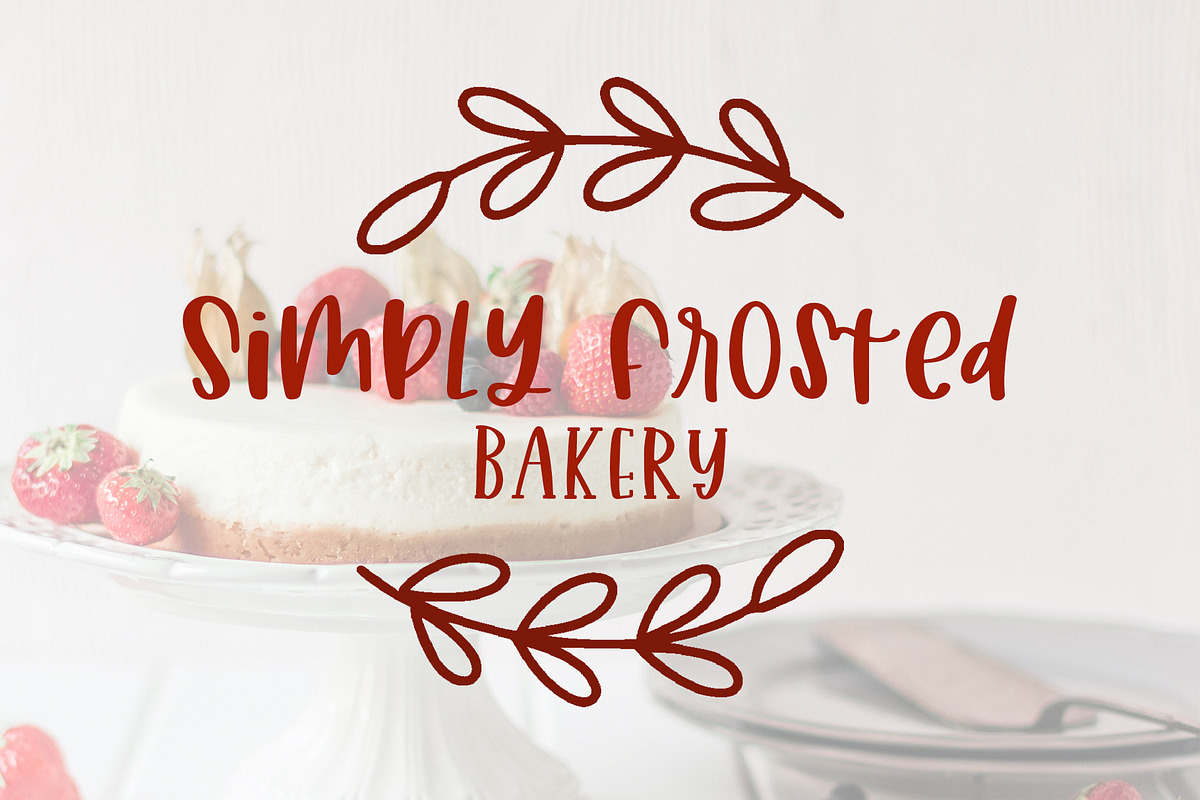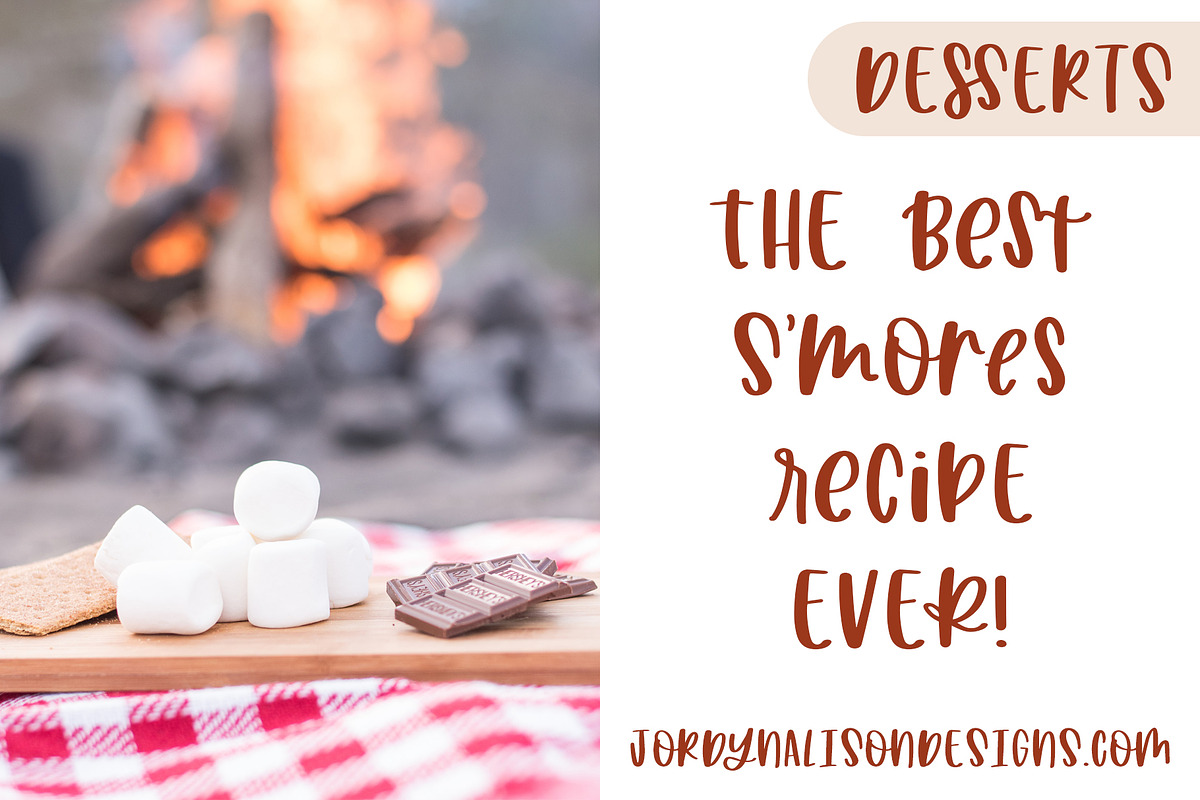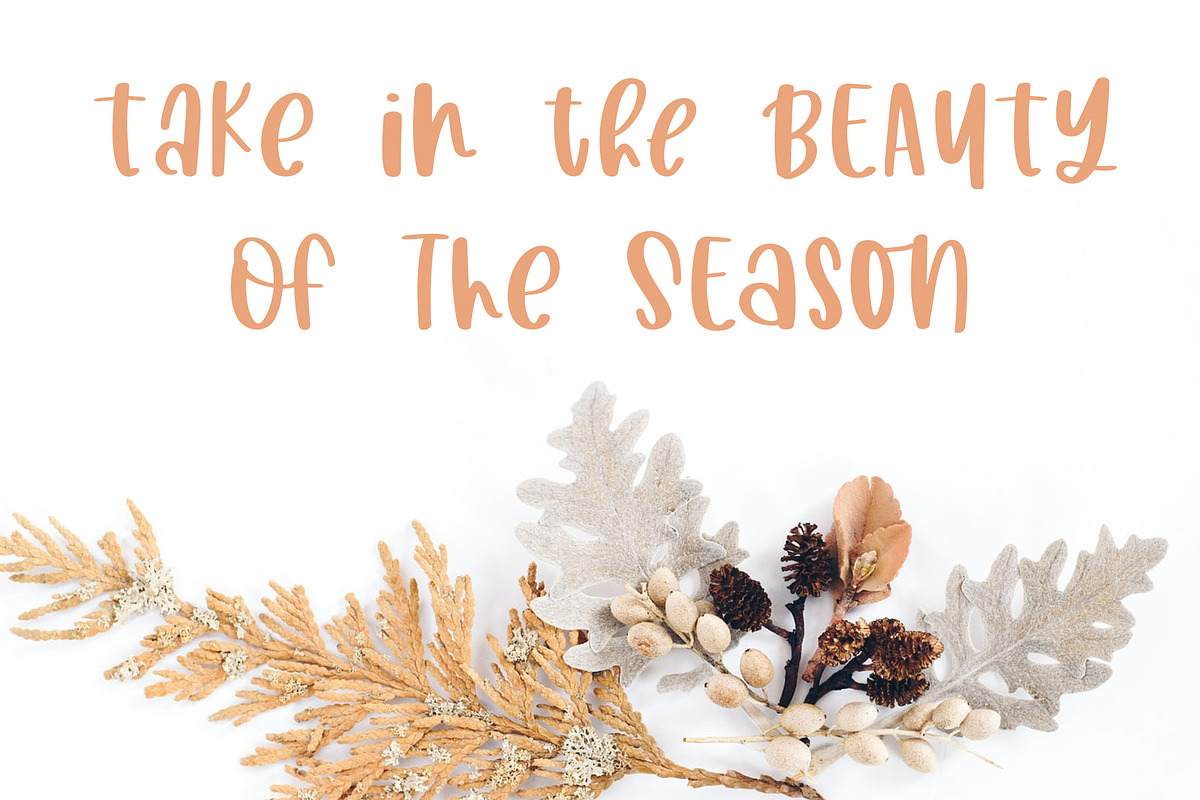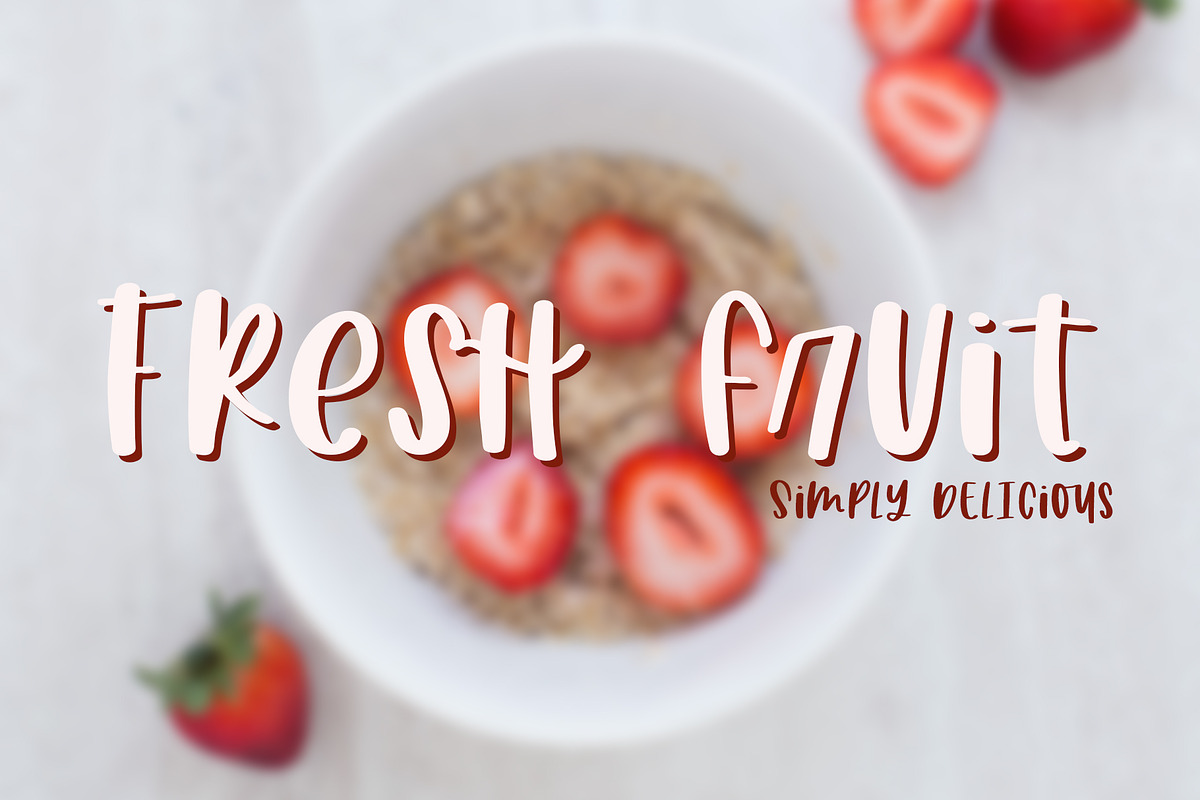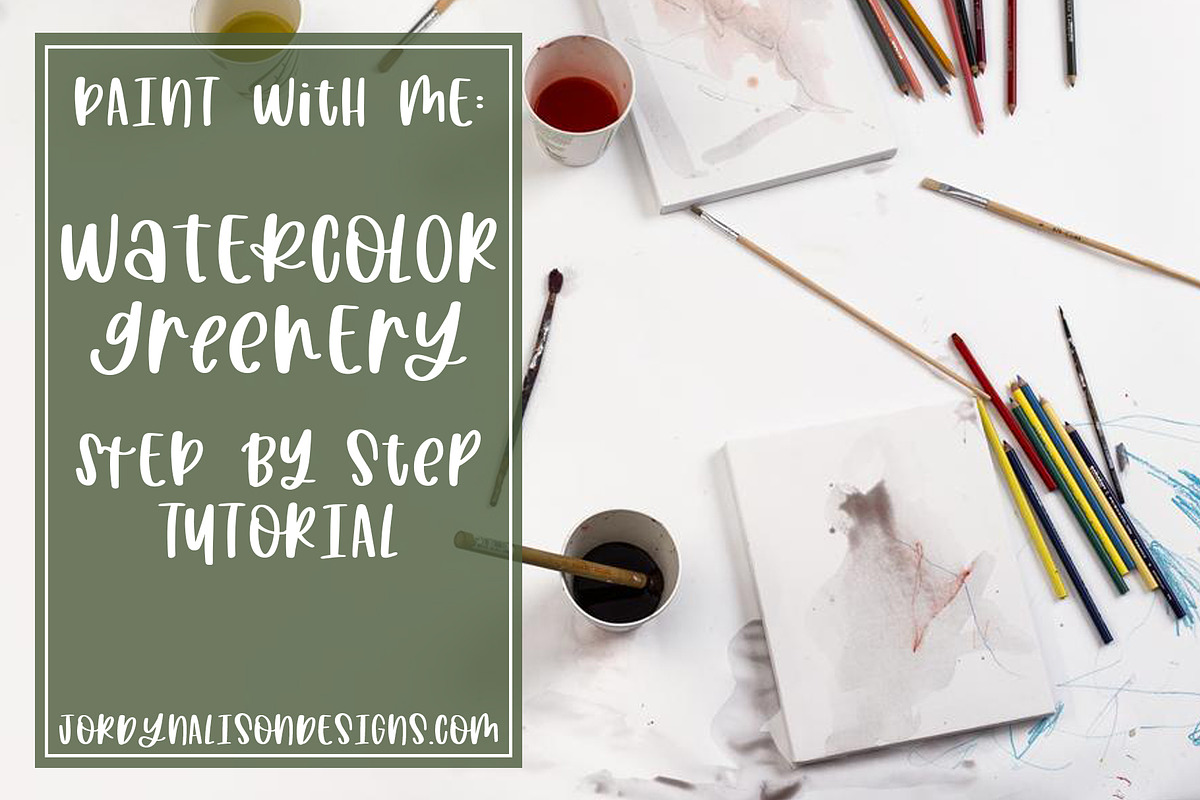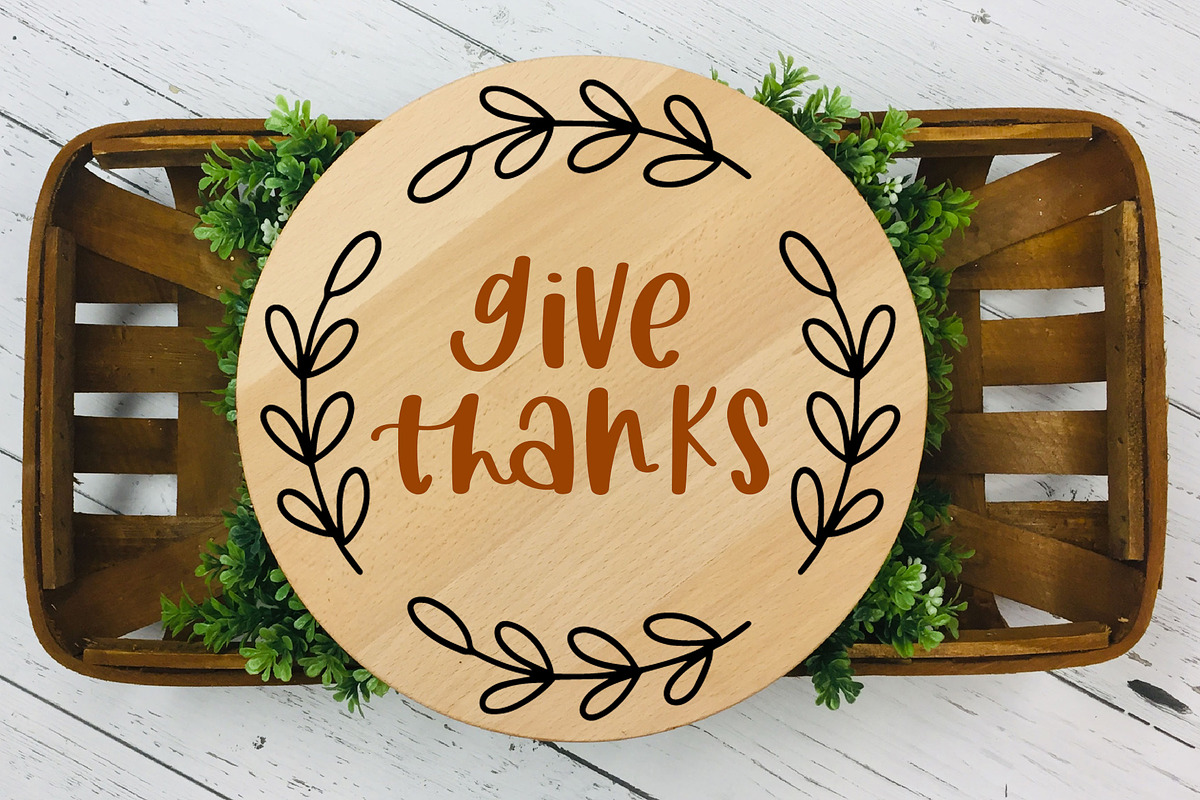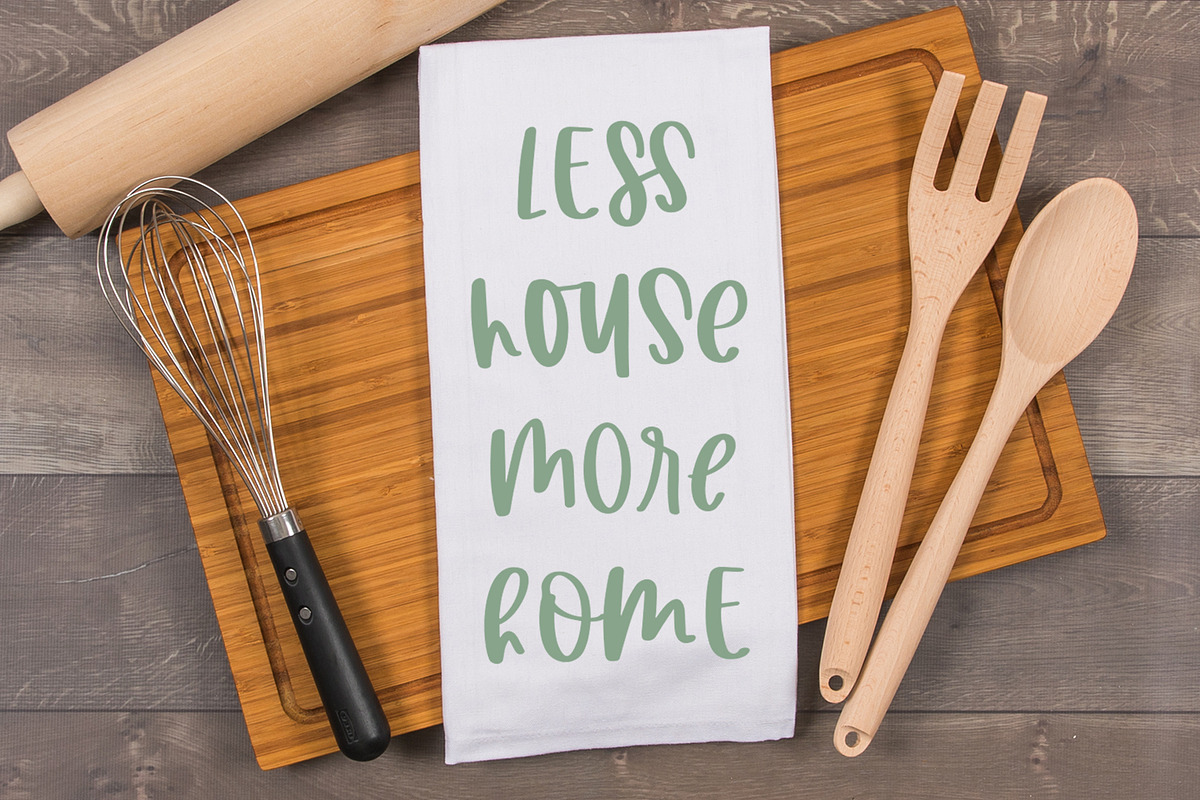
Harvest Wishes Cozy Marker Font
Introducing Harvest Wishes, a cozy marker font!
Full set of uppercase characters, lowercase characters
Some punctuation and numbers 0-9
18 Alternate Characters
127 Multilingual Support Characters
A total of 321 glyphs are included in Harvest Wishes.
- Font Features: Full set of uppercase characters, lowercase characters Some punctuation and numbers 0-9 14 Ligatures 18 Alternate Characters
- Full set of uppercase characters, lowercase characters
- Some punctuation and numbers 0-9
- 14 Ligatures
- 18 Alternate Characters
- 127 Multilingual Support Characters
- A total of 321 glyphs are included in Harvest Wishes.